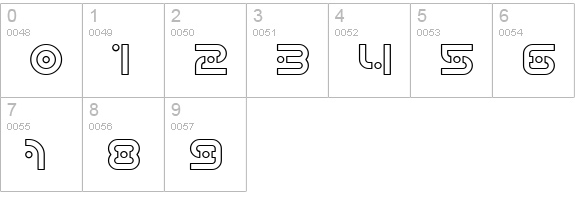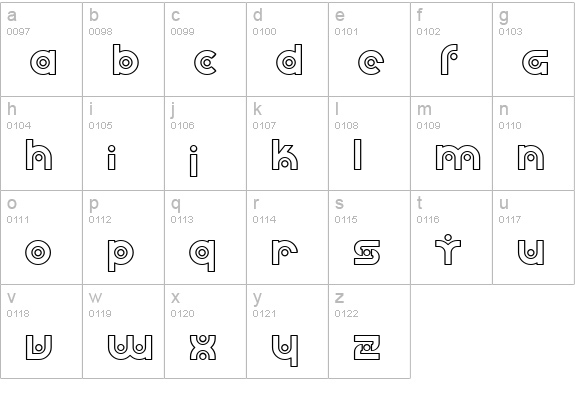
SF Planetary Orbiter Outline Font Details
Introducing the SF Planetary Orbiter Outline font, a stunning typeface that will take your designs to new dimensions! This font embodies the futuristic essence of science fiction, capturing the essence of space exploration and intergalactic adventures. With its sleek and precise outlines, SF Planetary Orbiter Outline font is perfect for adding a touch of cosmic sophistication to any project. Whether you're designing a sci-fi movie poster, creating a captivating book cover, or crafting out-of-this-world branding, this font is sure to make a bold statement. What sets SF Planetary Orbiter Outline font apart is its versatility. It seamlessly blends modernity with a touch of nostalgia, evoking a sense of nostalgia for classic sci-fi films and novels. Its clean lines and sharp angles give it a contemporary edge, while its rounded corners add a touch of warmth and approachability. The best part? SF Planetary Orbiter Outline font is completely free to download at FontsMarket.com! Yes, you read that right - this incredible font is available for you to use in all your personal and commercial projects without any cost. It's the perfect opportunity to unleash your creativity without breaking the bank. So why wait? Dive into the world of SF Planetary Orbiter Outline font and let your imagination soar to new heights. Whether you're a seasoned designer or just starting out, this font is the perfect tool to elevate your work and captivate your audience. Download it today from FontsMarket.com and embark on an interstellar design journey like no other.